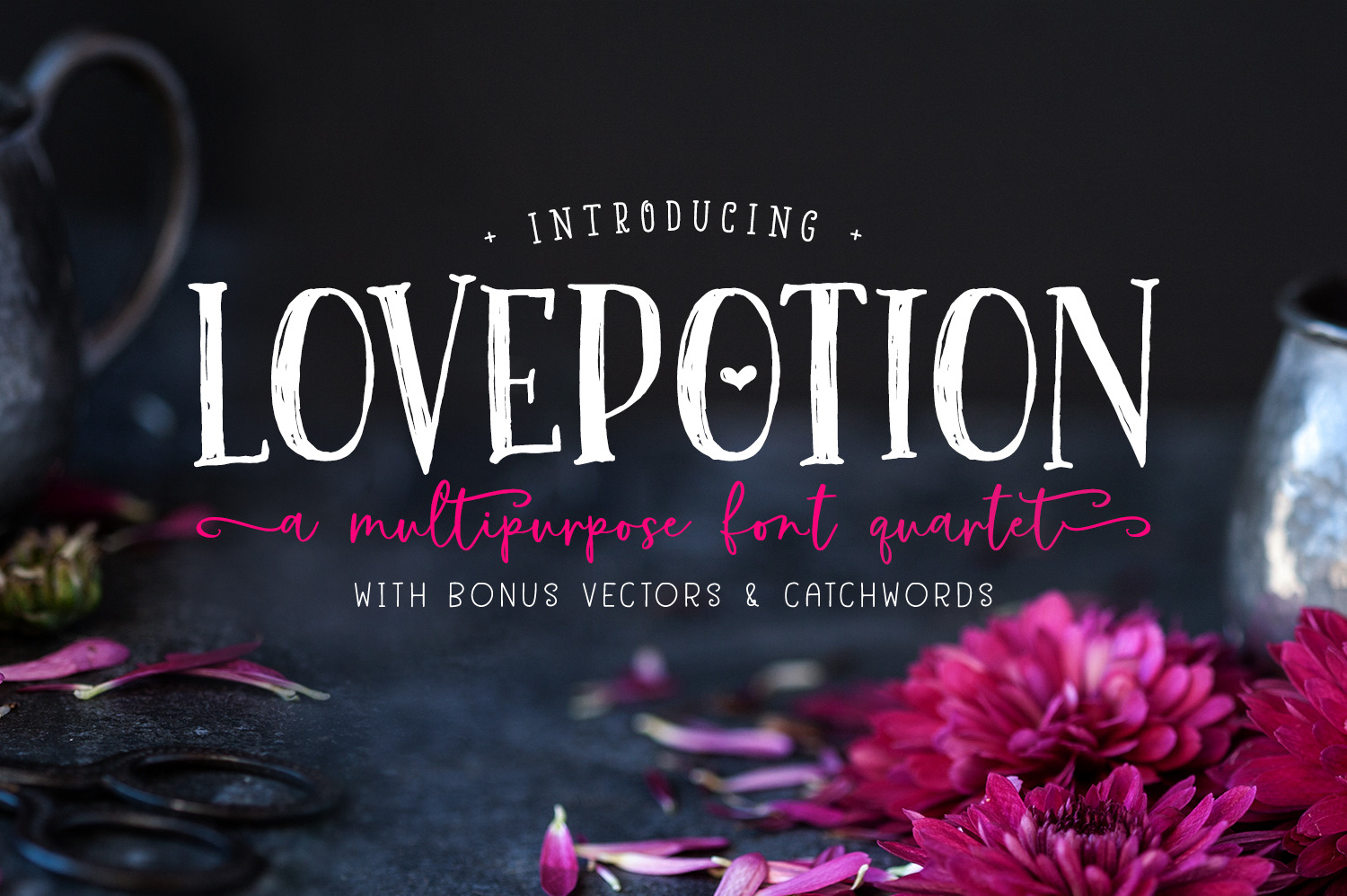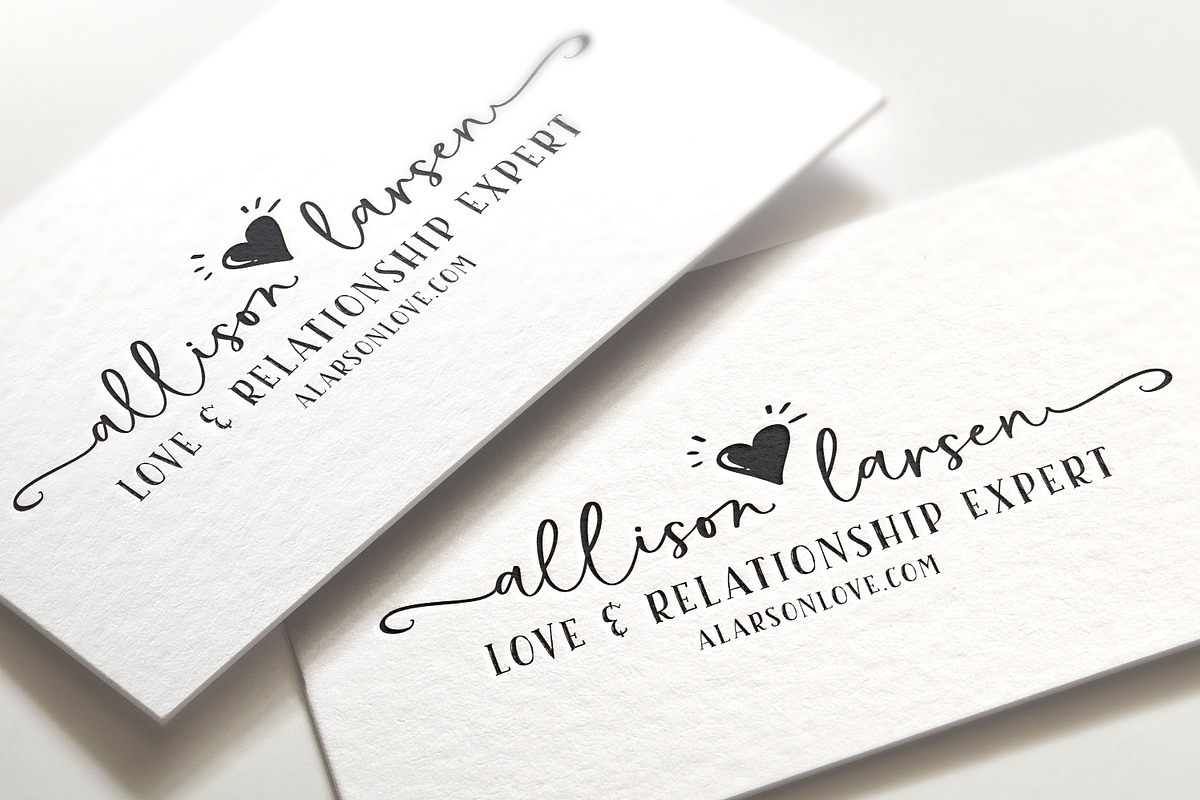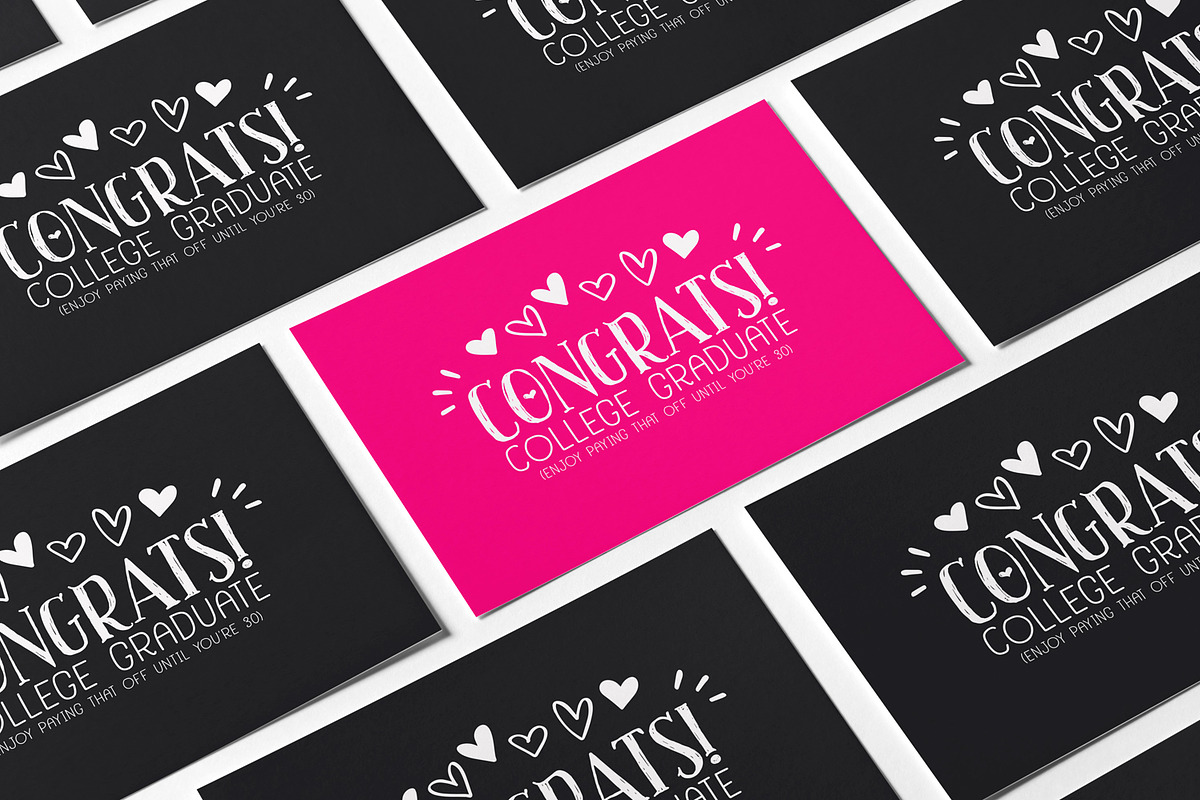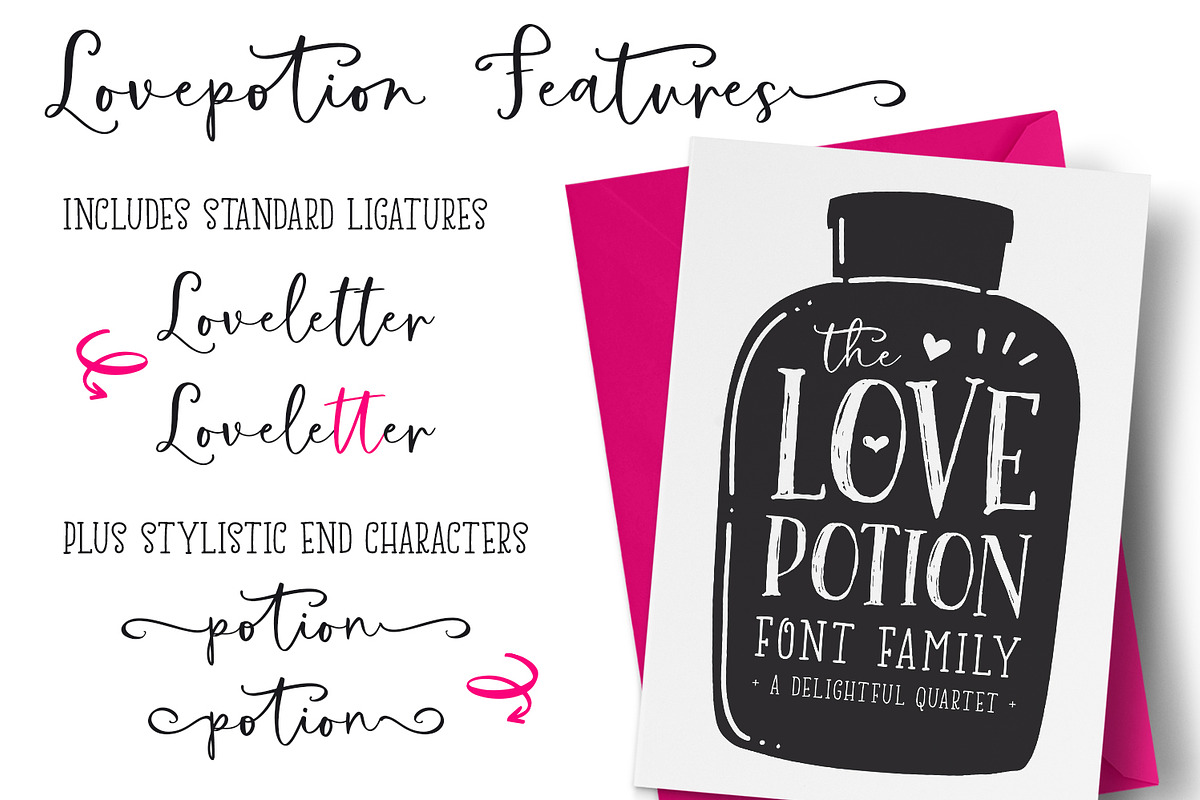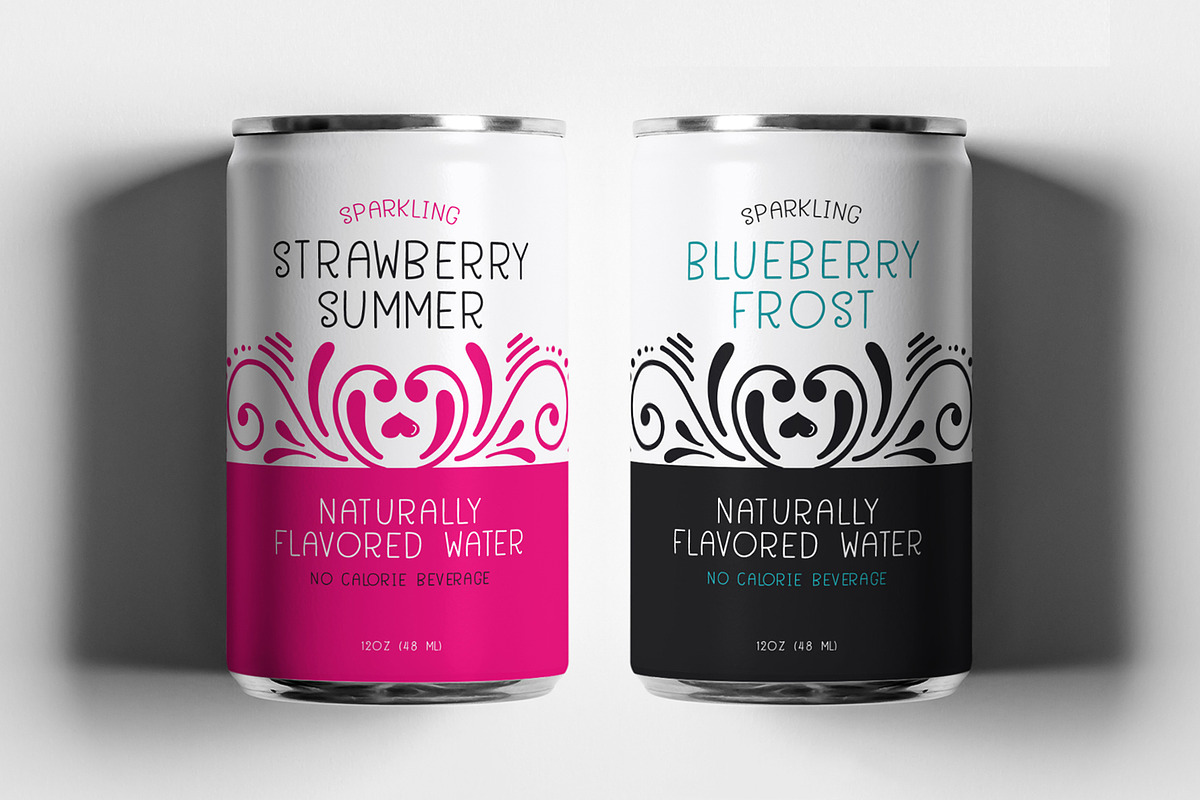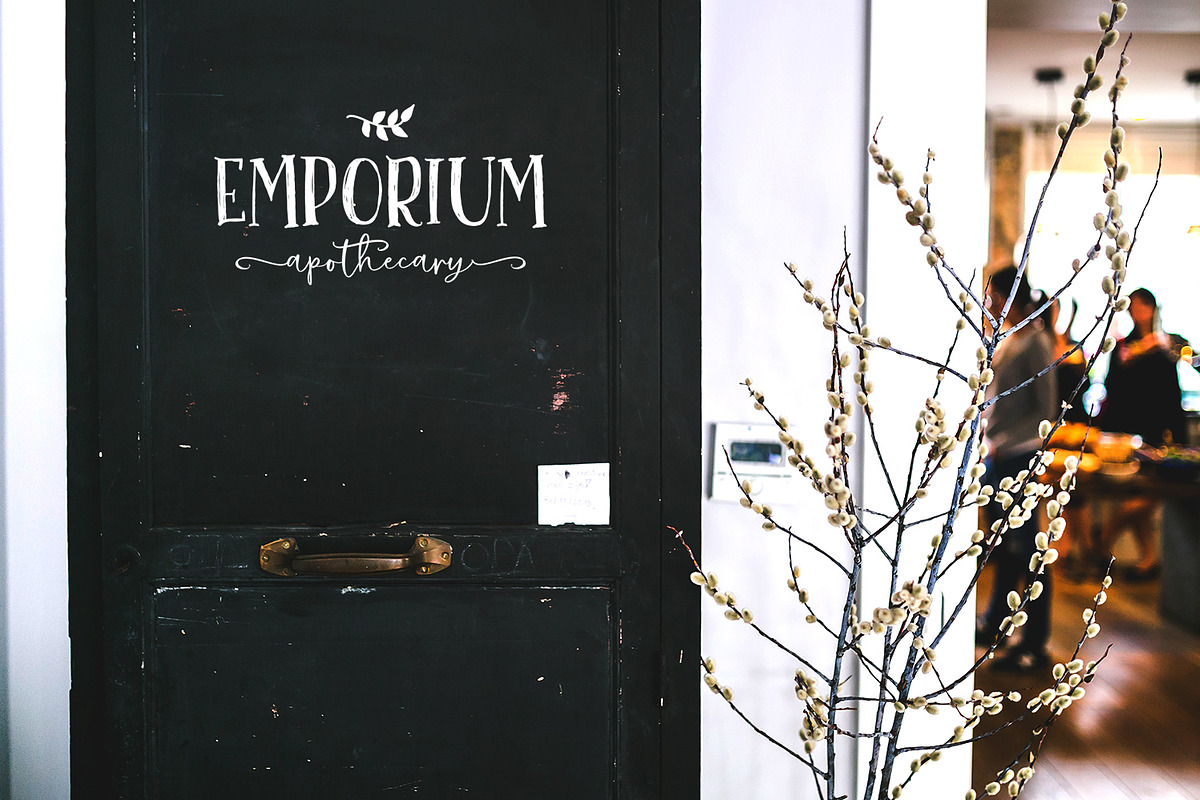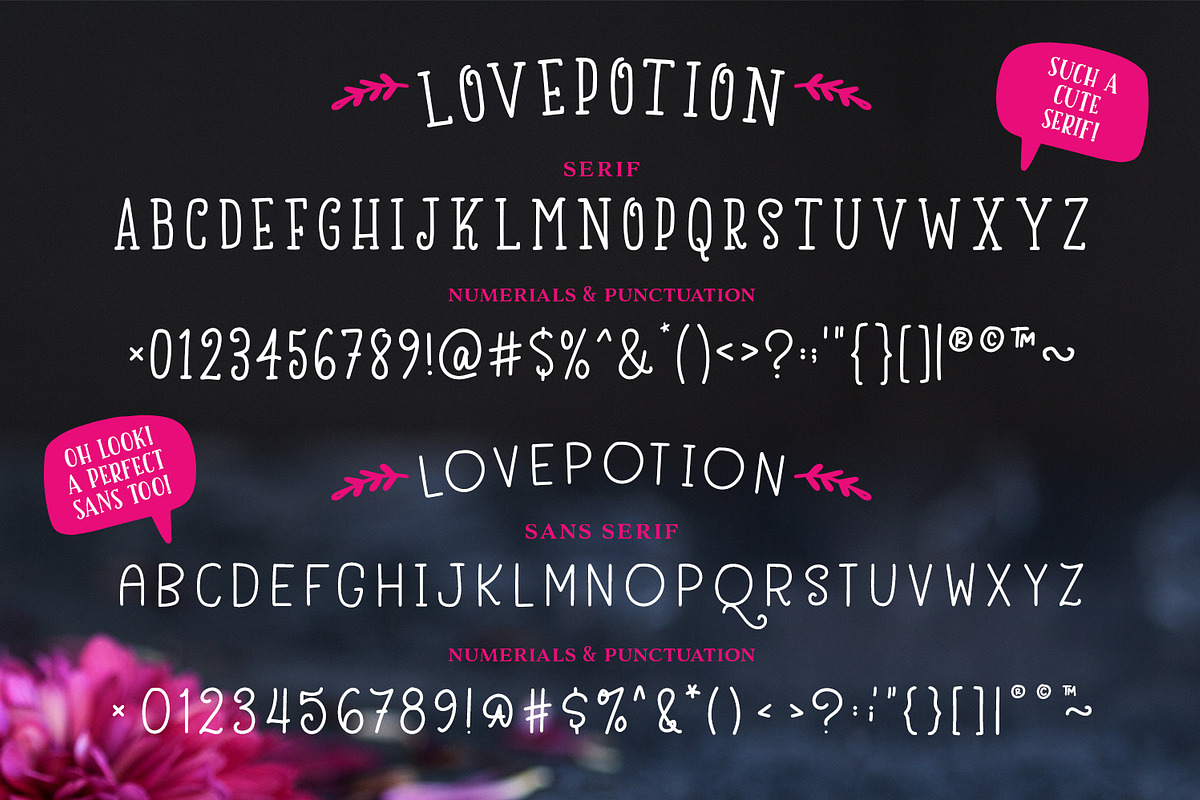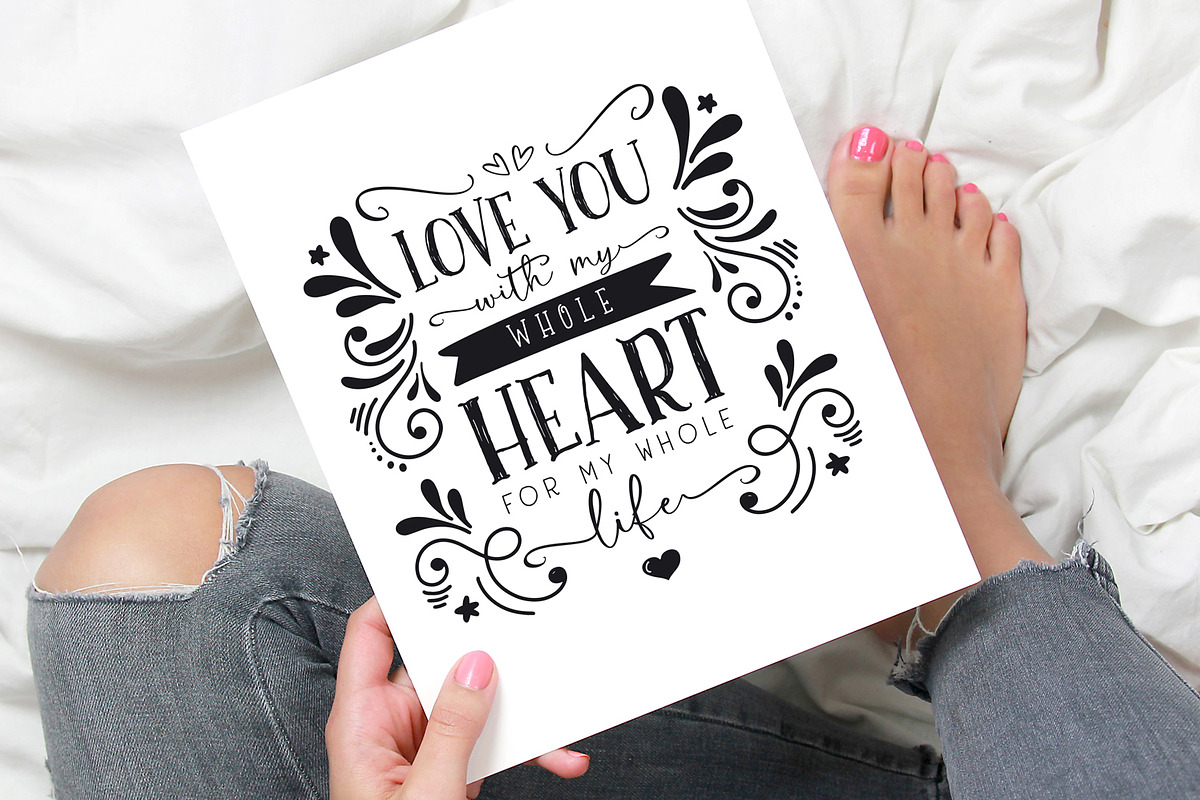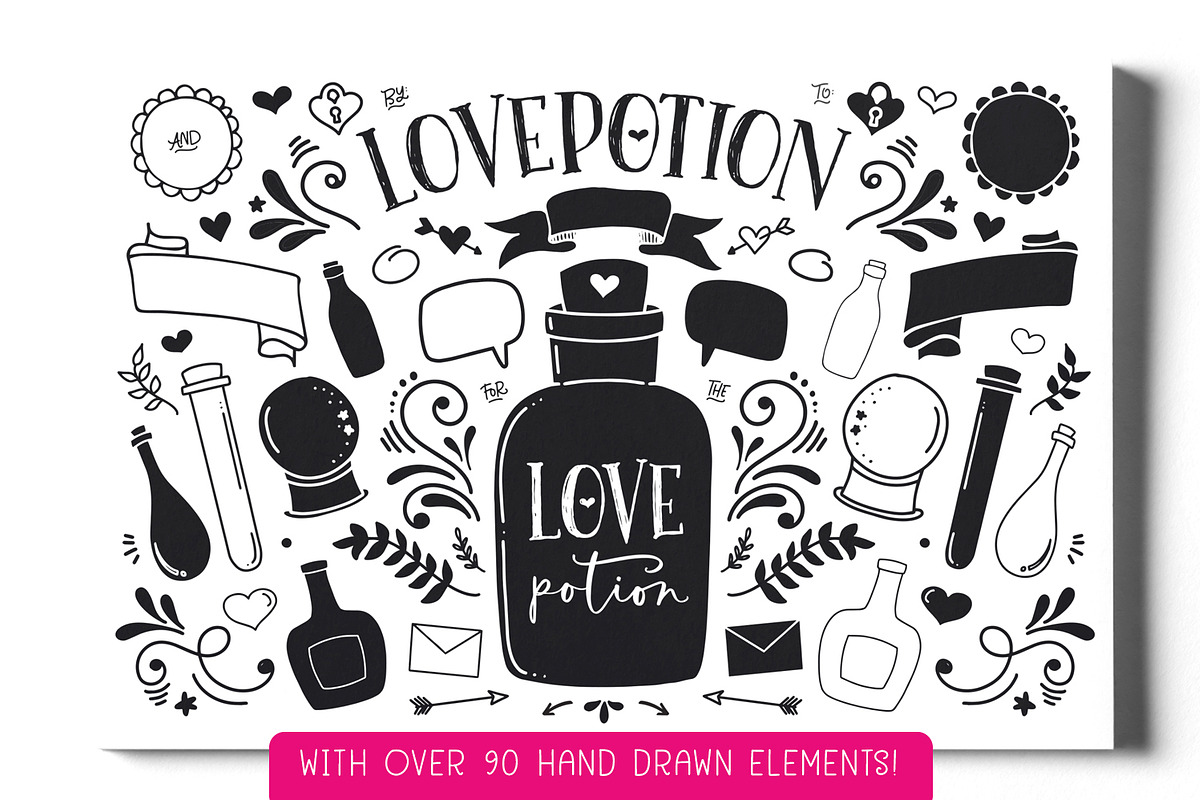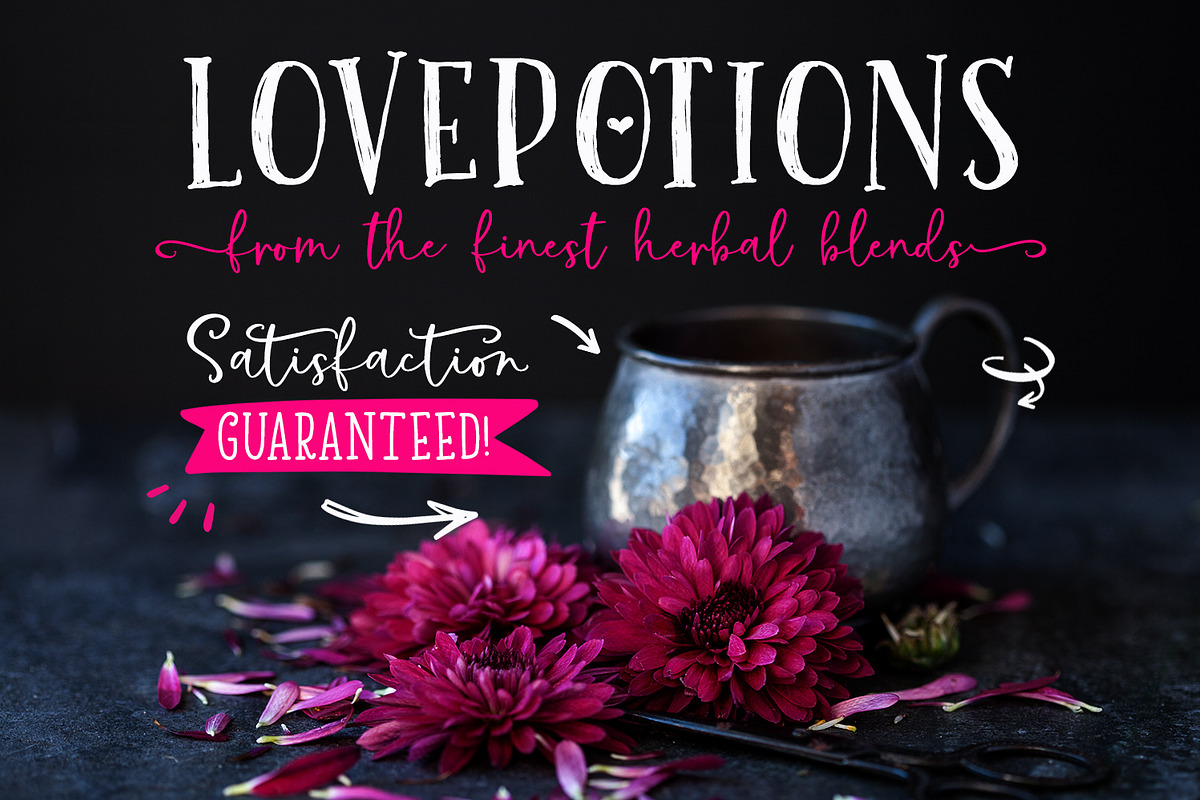
The Lovepotion Font Collection
Fall in love with the **Lovepotion Collection! This darling font quartet boats a swanky script, an adorable serif, a clean sans, a rugged hand drawn version and more than 90 graphic elements, all hand-drawn with love. 💕
Use the Lovepotion Collection on packaging, greeting cards, mugs, apparel, business cards, branding, typography and more!
- Lovepotion Sketched (OTF & TTF) - A hand-sketched, all caps typeface with loads of hand drawn charm.
- Lovepotion Script (OTF & TTF) - A sweet, smooth script font with decorative ends, standard ligatures and select alternates.
- Lovepotion Serif (OTF & TTF) - A charming, simple serif to compliment your script and sketched versions.
- Lovepotion Sans Serif (OTF & TTF) - A smooth, clean sans to pair perfectly with the rest of the Lovepotion family. A font set is never complete without that sweet Sans. 😉
- Lovepotion Elements (AI & EPS) - An adorable set of over 90 hand-illustrated elements to compliment your new font family.